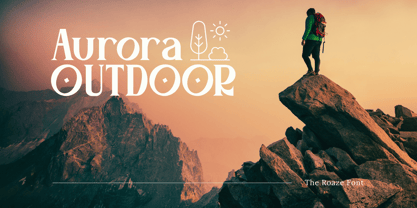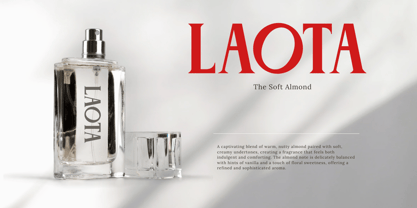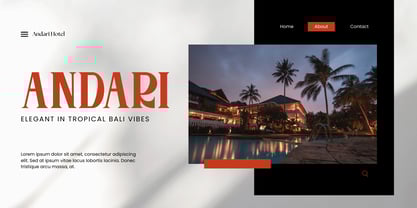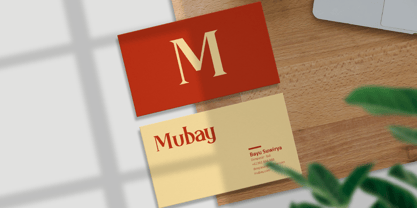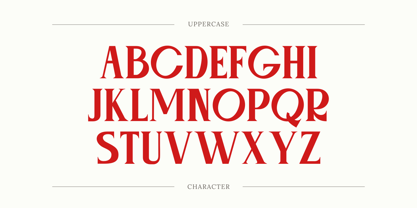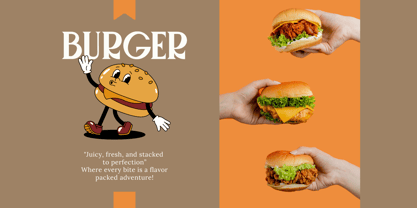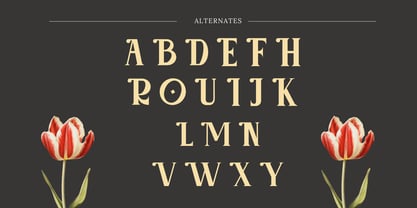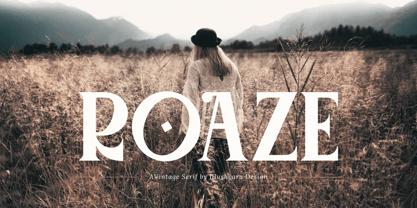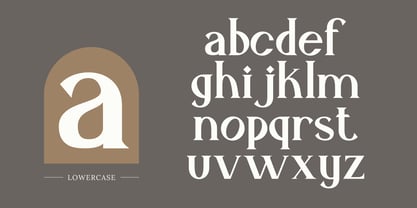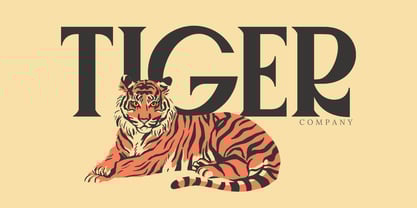
Roaze
by Illushvara
The Roaze Font Family was designed by Bayu Suwirya and published by Illushvara. Roaze contains 1 styles. More about this family
Roaze is a timeless vintage font designed to bring elegance and charm to your creative projects.
Its sophisticated curves and distinctive style make it ideal for branding, logos, fashion campaigns, and film titles.
The font’s versatile appeal effortlessly blends classic aesthetics with modern design, ensuring a bold and memorable statement.
Roaze is perfect for creating iconic visuals that exude refinement, making it a go-to choice for high-end branding and artistic storytelling.
Designers: Bayu Suwirya
Foundry: Illushvara